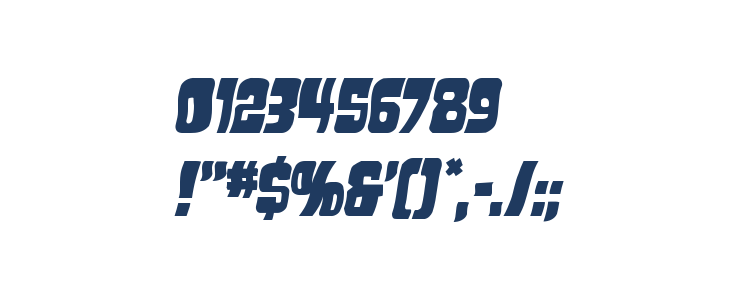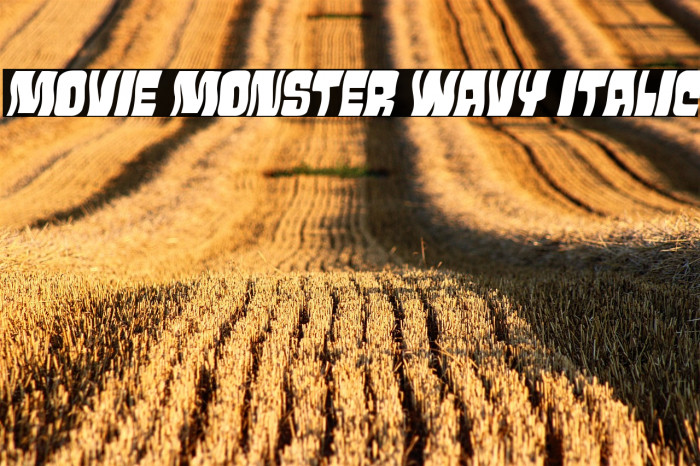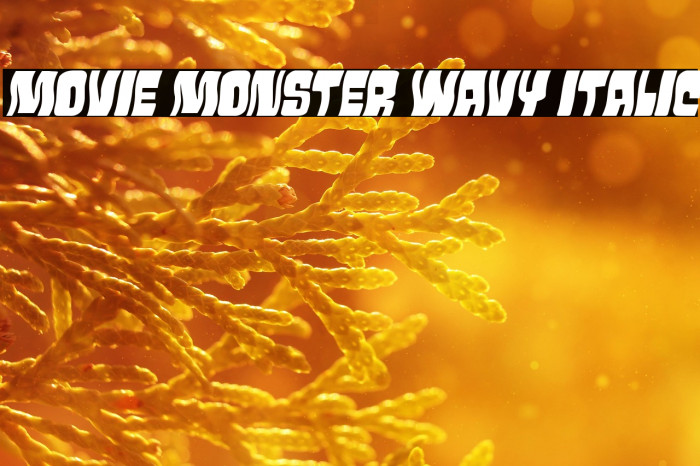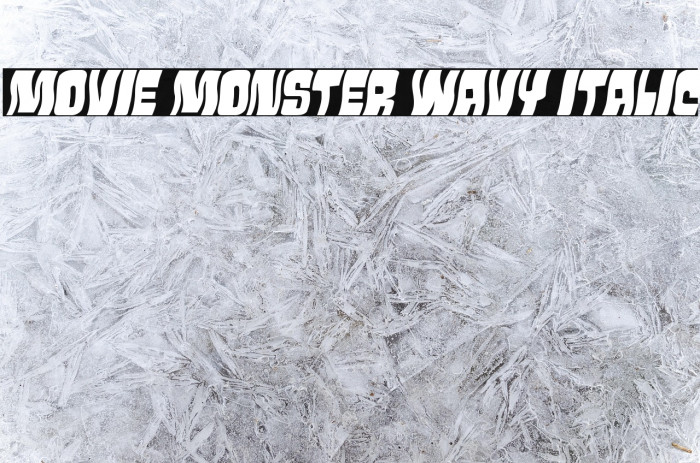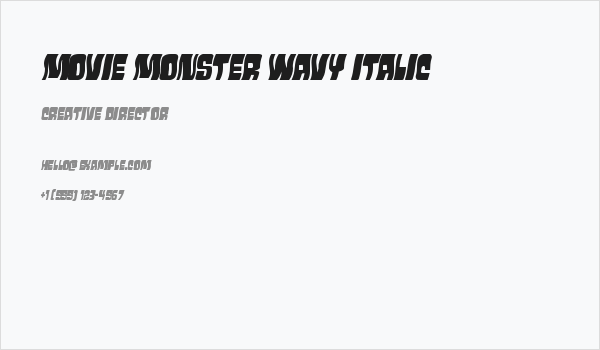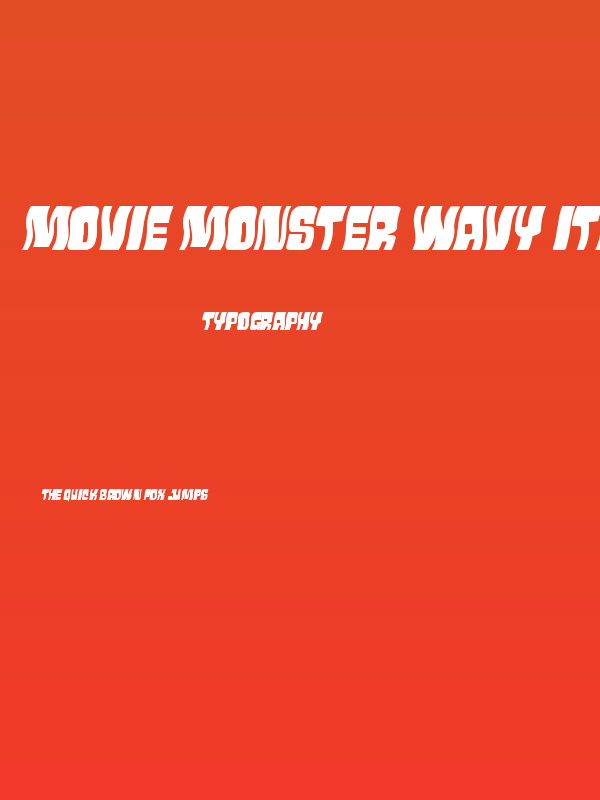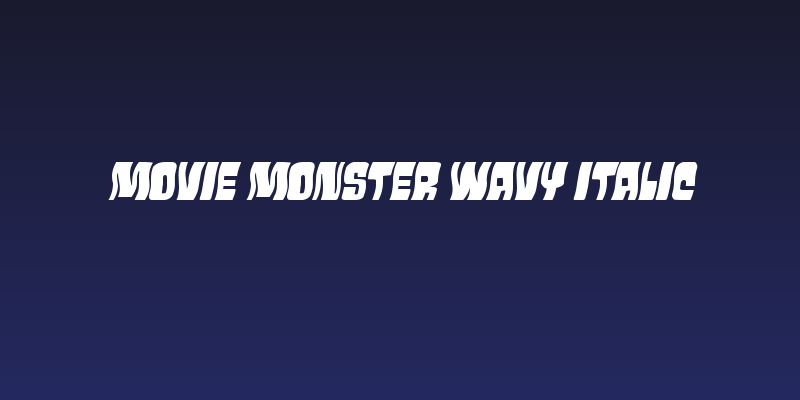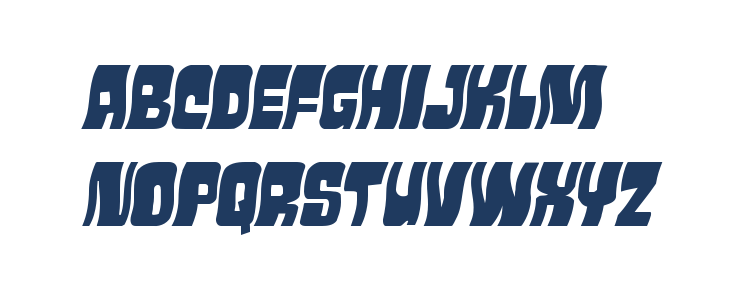
Movie Monster Wavy Italic Font
Movie Monster Wavy Italic Description
This font features a bold and dynamic style with a wavy, italicized appearance that gives it a sense of movement and energy. The characters are thick and robust, with a slightly condensed form that enhances their impact. The wavy design adds a unique flair, making it stand out in any design project. The uppercase letters are particularly striking, with their bold curves and sharp edges, while the numbers and special characters maintain the same energetic style. This font is perfect for projects that require a bold, eye-catching typeface with a modern twist.
| Proposed Projects | Ideal for movie posters, video game covers, branding for energetic products, or any project needing a bold and modern typeface. |